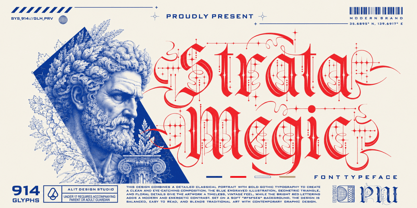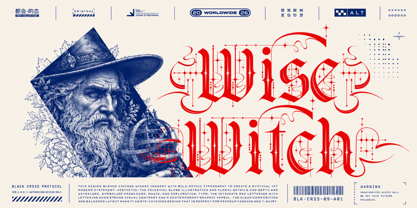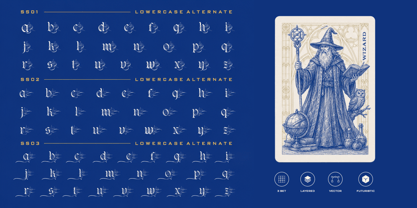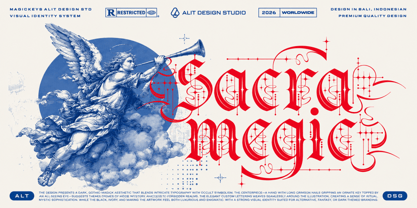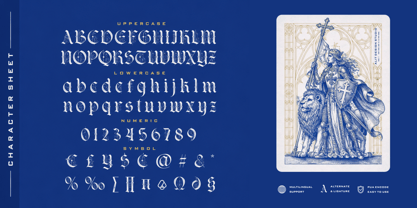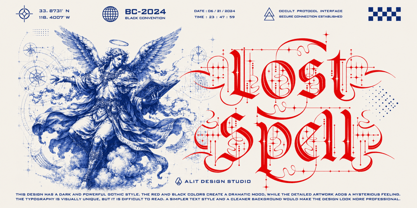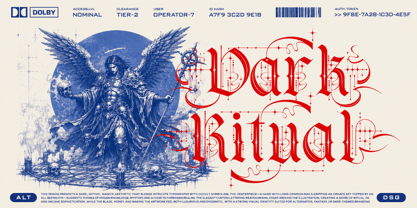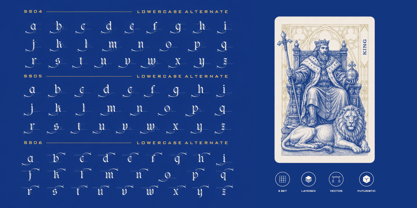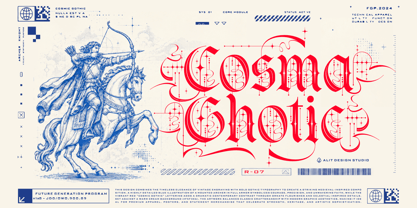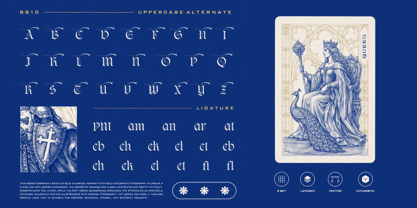
Strata magic
by Alit Design
The Strata magic Font Family was designed by Alit Suarnegara and published by Alit Design. Strata magic contains 1 styles. More about this family
Strata Magic Typeface – Premium Gothic Display Font
Step into a realm of mystical elegance with the Strata Magic Typeface, a breathtakingly intricate display font that seamlessly bridges the gap between classical gothic typography and contemporary design. Crafted with meticulous attention to detail, this typeface features striking ornamental flourishes, star-studded accents, and a bold structure that commands attention.
Strata Magic is designed for creatives who want to add a touch of timeless mystery, sophistication, and raw energy to their artwork. It is the perfect choice for premium streetwear brands, vintage-inspired posters, album covers, dark-themed branding, editorial layouts, and esoteric merchandise.
With an expansive library of 914 glyphs, the creative possibilities are truly endless. The font is packed with highly decorative alternates and flourishes, allowing you to customize your typography to fit perfectly within any intricate layout or illustration.
Key Features:
• Comprehensive Character Set: Includes standard Uppercase and Lowercase letters, Numerals, and a full range of Symbols and Punctuation.
• Massive Glyph Count: A staggering 914 glyphs for ultimate design flexibility.
• Stylistic Sets: Features 10 unique Stylistic Sets (SS01 - SS10) packed with ornate swashes and decorative alternates to elevate your lettering.
• Ligatures: Custom ligatures (e.g., am, an, ch, ck, fl, etc.) for a smooth, handcrafted typographical flow.
• Multilingual Support: Broad language support to accommodate diverse global projects.
• Bonus Elements: Includes a special set of 50 bonus dingbats to perfectly complement your magical and gothic compositions.
Elevate your next project with the majestic and otherworldly charm of the Strata Magic Typeface!